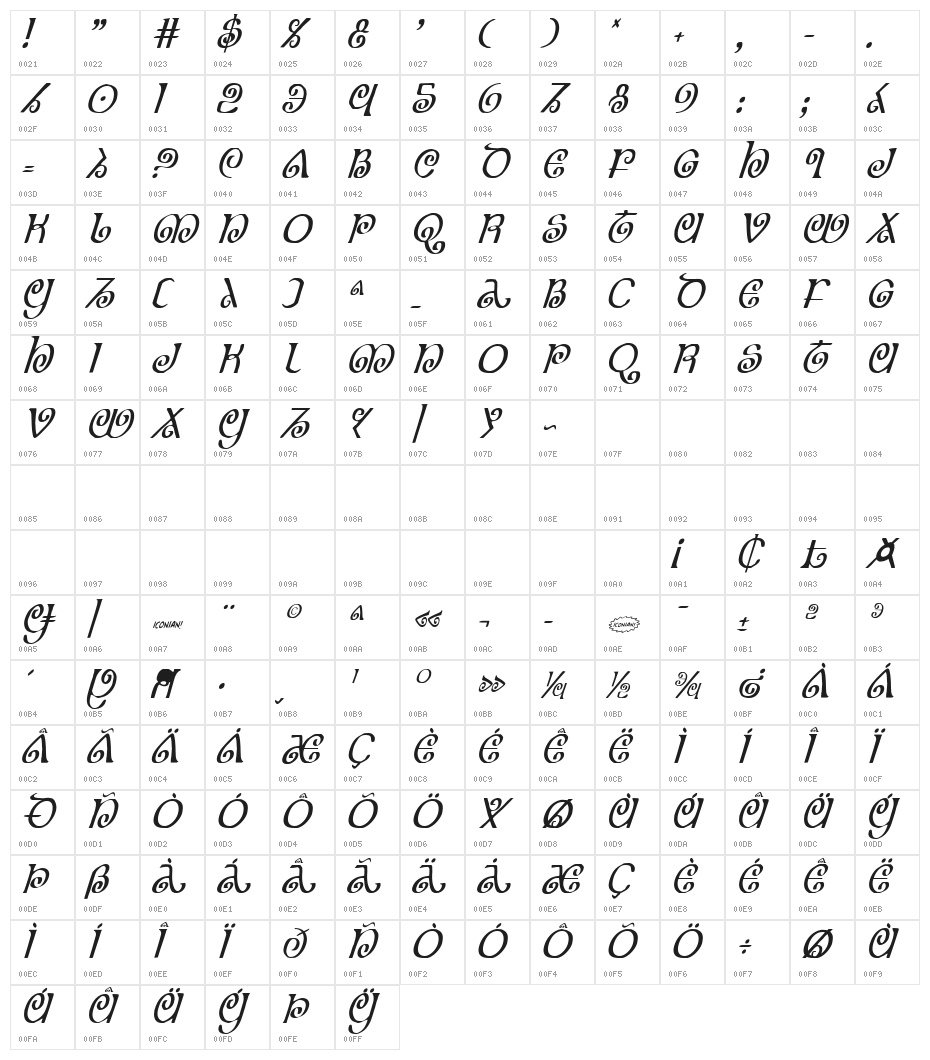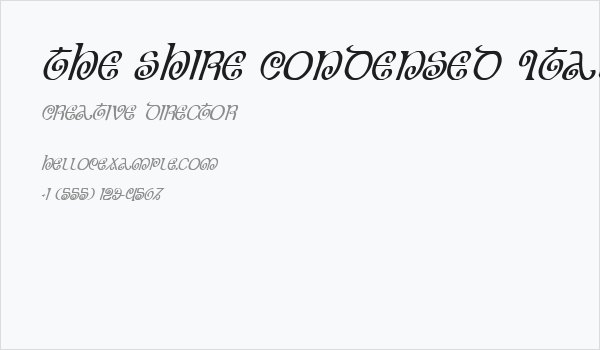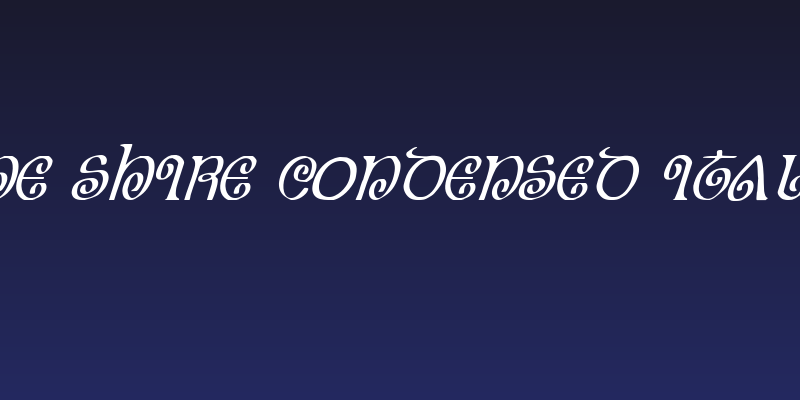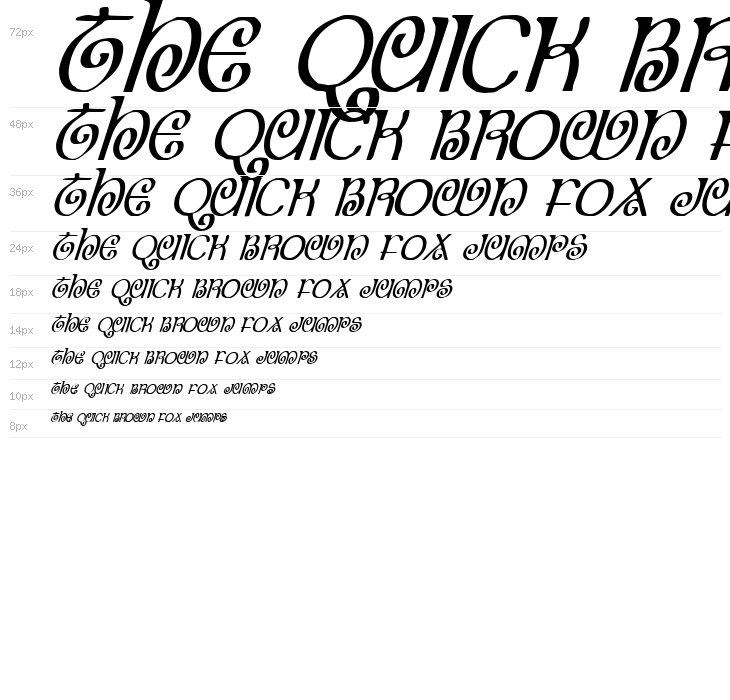
The Shire Condensed Italic Font
The Shire Condensed Italic Description
This font features a whimsical and decorative style, characterized by its unique and playful curves. The letters are condensed and italicized, giving them a dynamic and flowing appearance. Each character is adorned with intricate swirls and loops, adding a touch of fantasy and elegance. The numbers and special characters maintain the same decorative flair, ensuring consistency across all glyphs. This font's distinctiveness makes it stand out, offering a creative and artistic vibe that is both captivating and memorable.
| Proposed Projects | Ideal for fantasy-themed projects, book covers, posters, and creative branding. |